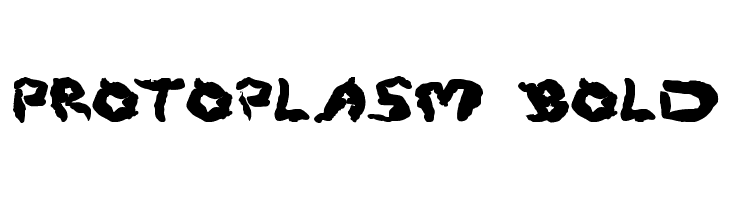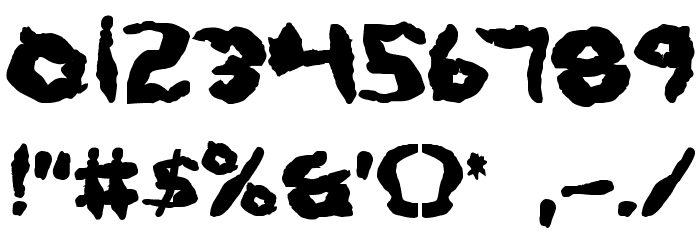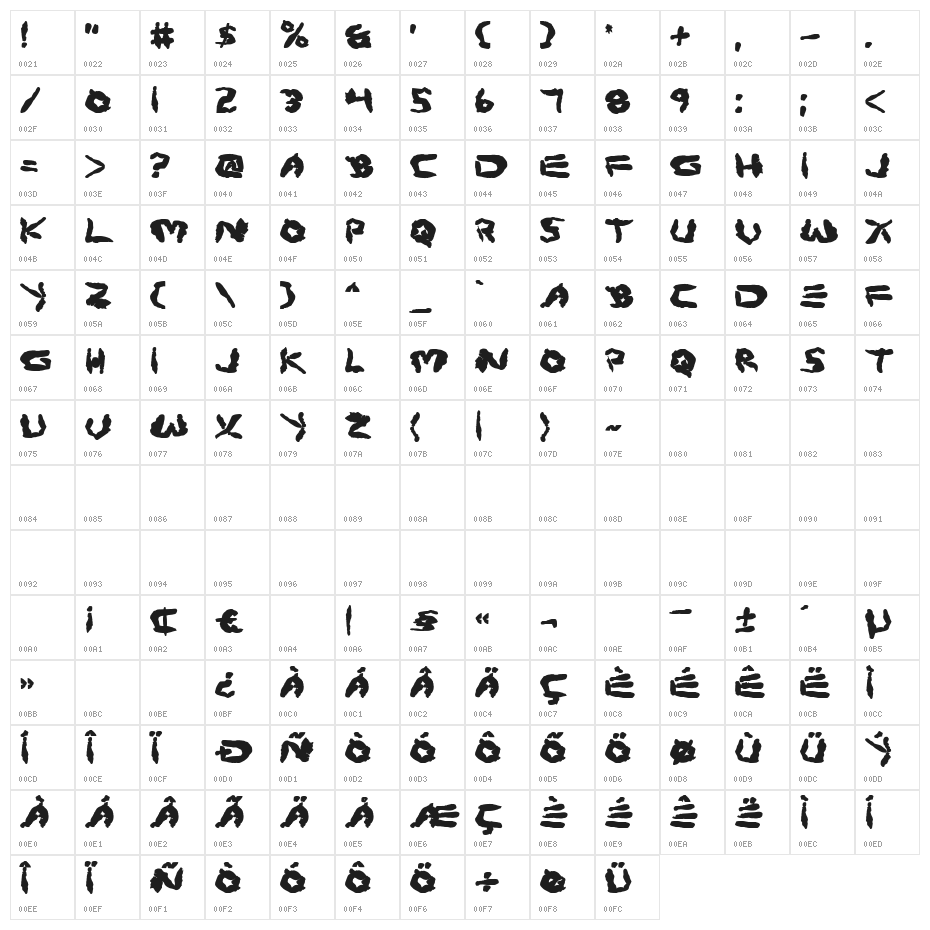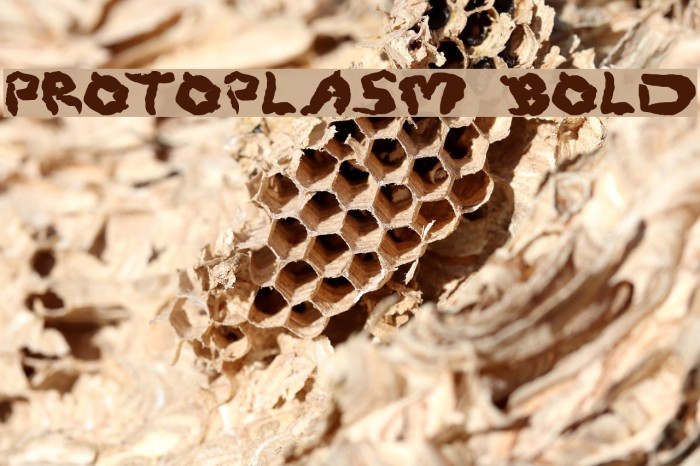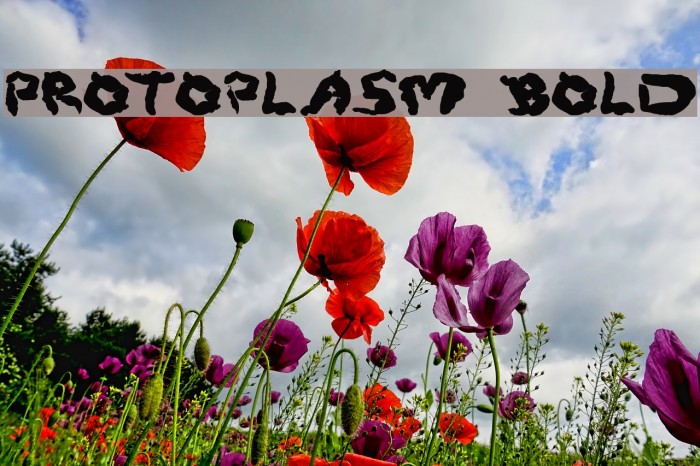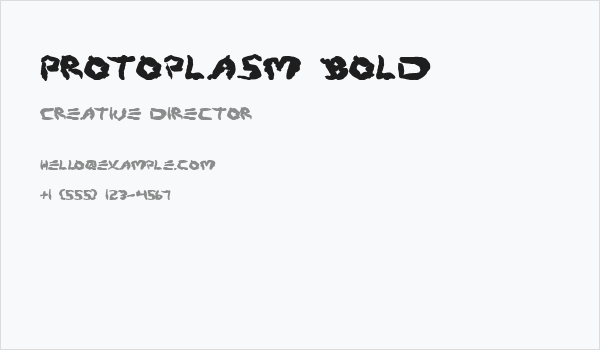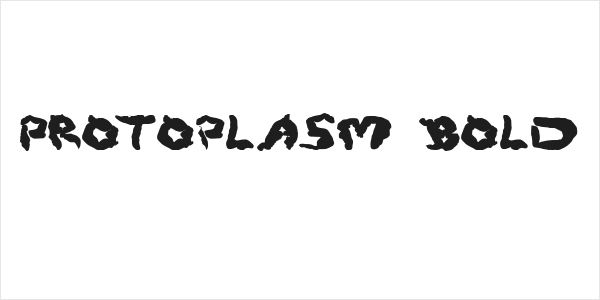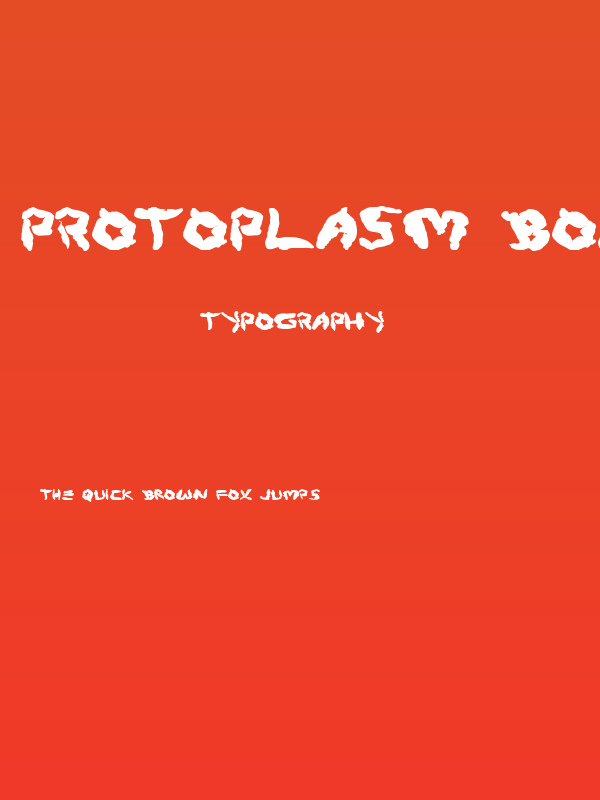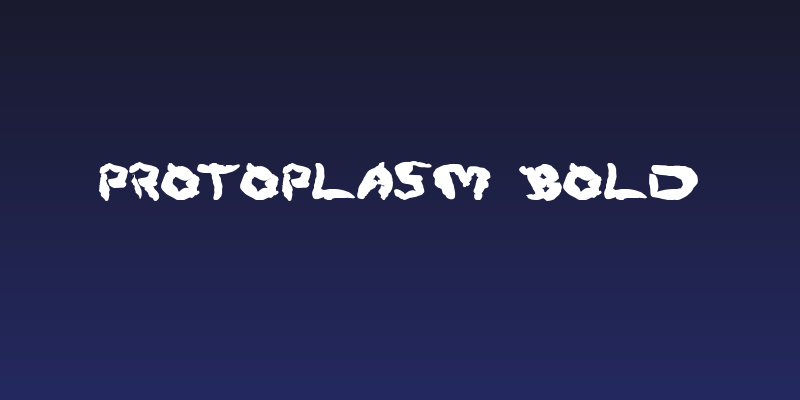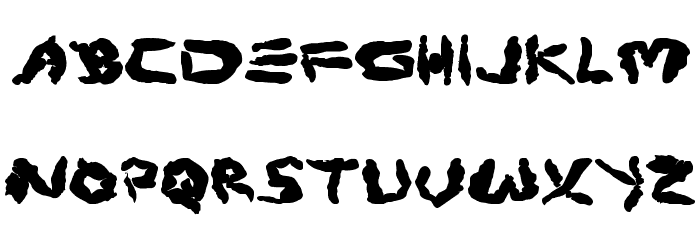
Protoplasm Bold Font
Protoplasm Bold Description
This font features a bold and organic design, reminiscent of liquid or biological forms. The characters are irregular and have a hand-drawn appearance, with thick, uneven strokes that give a sense of movement and fluidity. The uppercase and lowercase letters maintain a consistent style, with a playful and artistic flair. The numbers and special characters follow the same aesthetic, making the font cohesive and visually striking. Its unique style makes it suitable for creative and unconventional projects.
| Use Case | Logos, Posters, Creative Projects |
| Proposed Projects | Ideal for artistic posters, album covers, and creative branding projects. |